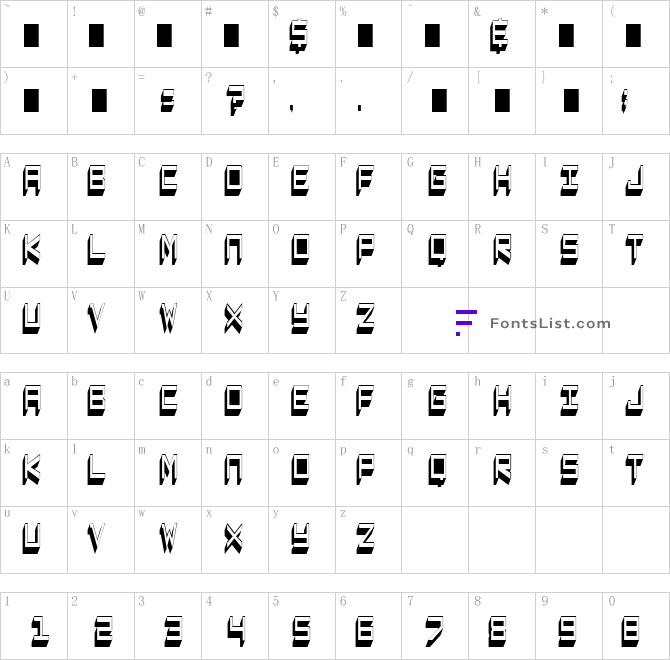
- Font Name:Captain Lethargic
Captain-Lethargic.ttf is a very beautiful artistic font, Captain-Lethargic.ttf is widely used in the design and printing of various books and pictures,Captain-Lethargic.ttf has a strong visual impact,Captain-Lethargic.ttf is a commonly used font in newspapers, magazines and books, and is used in posters, e-commerce Poster design, store design, logo design, font design and other fields.Captain-Lethargic.